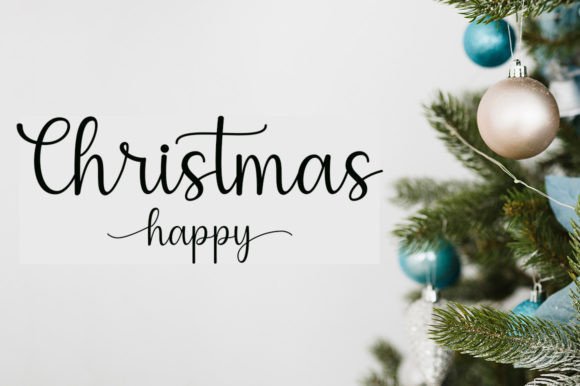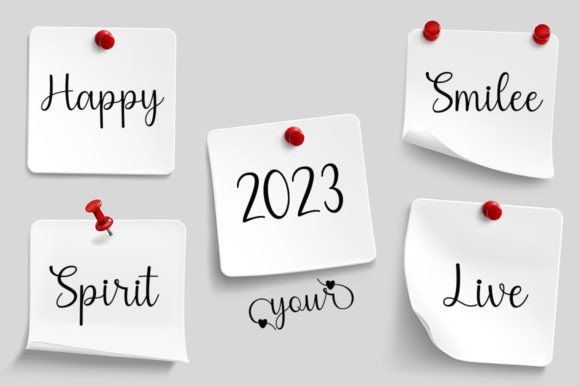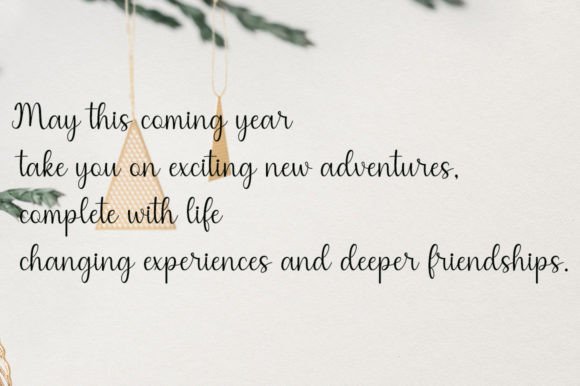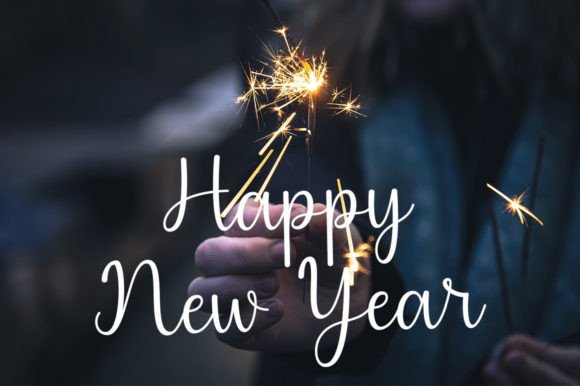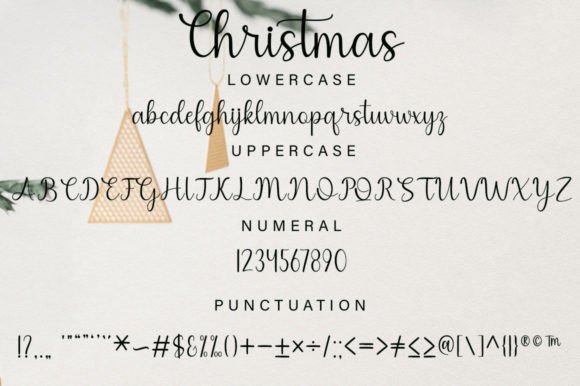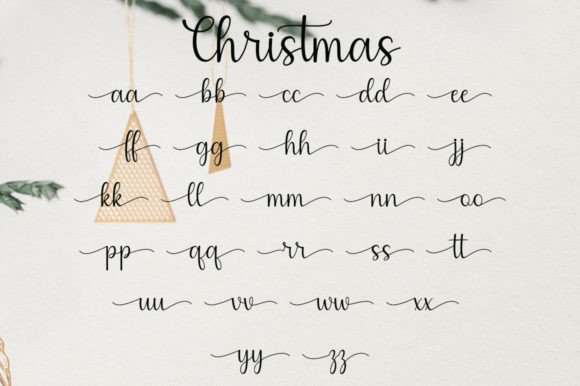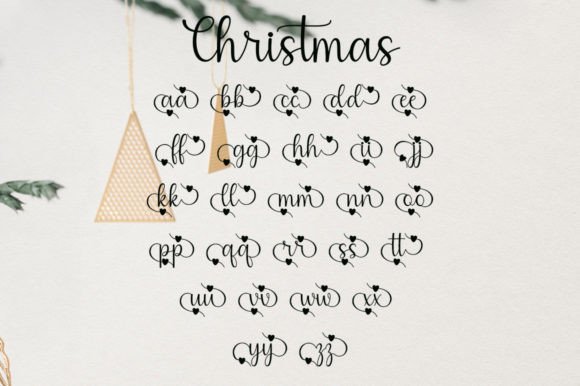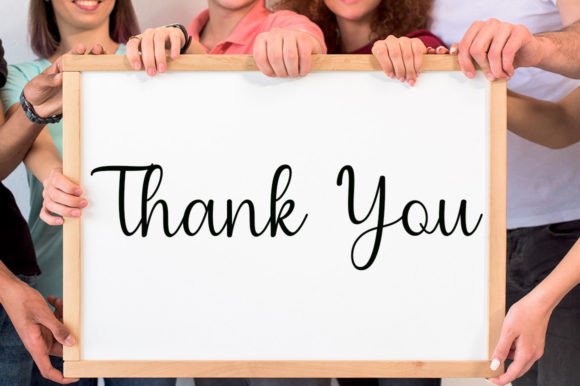
Christmas Ornamen Font
The Christmas Ornamen Font Download is a delicate and flowing handwritten script designed to bring elegance and charm to all your creative projects. With smooth strokes and graceful curves, it reflects a timeless handwritten style that feels both modern and classic. Whether you are preparing festive cards, branding work, or digital designs, this typeface ensures your creations stand out with sophistication.
A Delicate and Elegant Handwritten Script
The Christmas Ornamen script font blends soft calligraphic strokes with a natural rhythm. As a result, it creates a perfect balance of style and readability. Furthermore, its flowing design adapts beautifully to both large display text and small decorative details, making it an excellent all-around font.
Handwritten fonts are always perfect for personal stationery. The Christmas Ornamen Font is ideal for wedding invitations, thank you notes, birthday greetings, and seasonal cards. Because of its elegant strokes, every card feels heartfelt and unique. In addition, it adds a warm and joyful festive charm to holiday designs.
Branding and Logo Design with Christmas Ornamen Font
Typography sets the tone for any brand. The Christmas Ornamen handwritten font is perfect for boutique logos, product packaging, and marketing campaigns. Its refined curves help brands appear professional while keeping a creative edge. Therefore, it works especially well for lifestyle, fashion, and craft businesses.
Posters, Quotes, and Editorial Projects
The Christmas Ornamen Font Download also shines in creative layouts such as posters, book covers, and magazines. Inspirational quotes look stunning when paired with its flowing script. Consequently, it’s a smart choice for designers seeking both impact and sophistication.
In today’s digital-first world, fonts must work across platforms. The Christmas Ornamen typeface integrates seamlessly into Instagram posts, Pinterest boards, YouTube thumbnails, and blogs. Because of its stylish handwritten energy, it adds beauty and personality to every digital project.
Why Designers Choose Christmas Ornamen Typeface
Designers value fonts that combine elegance with usability. The Christmas Ornamen handwritten script offers both charm and practicality. Its timeless look ensures it remains relevant in years to come. Moreover, it is PUA encoded, allowing full access to glyphs, swashes, and ligatures with ease.
Add Festive Elegance to Your Projects Today